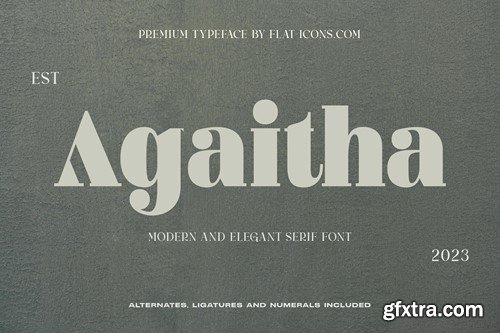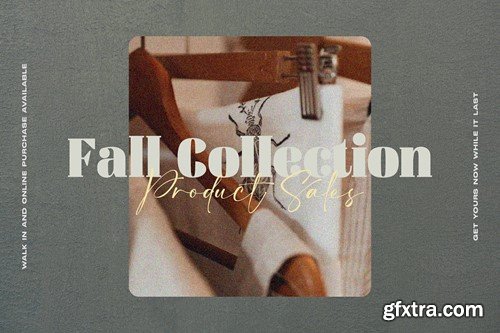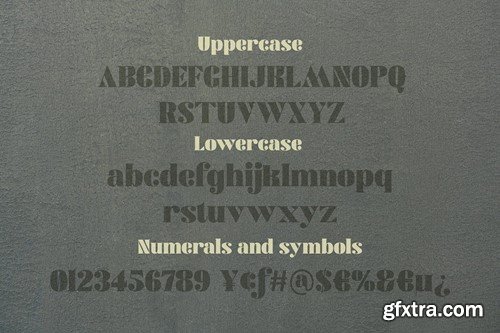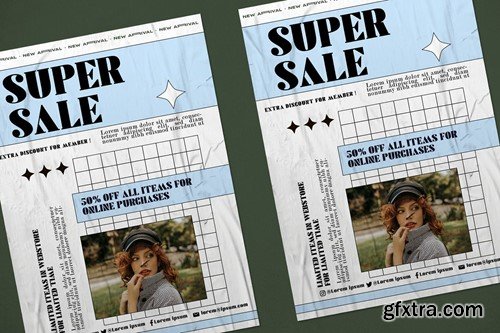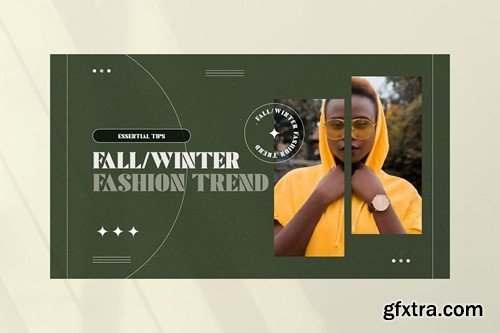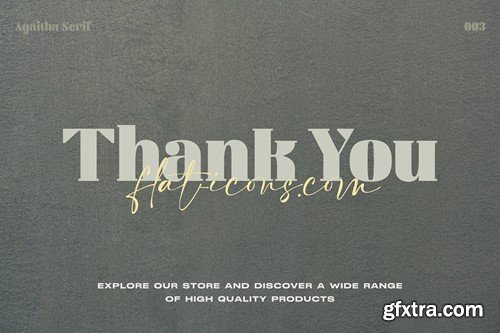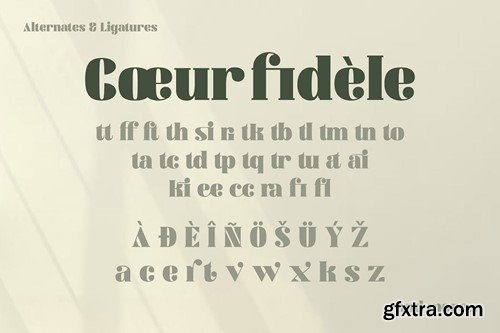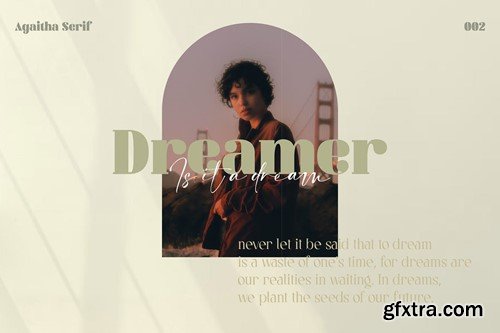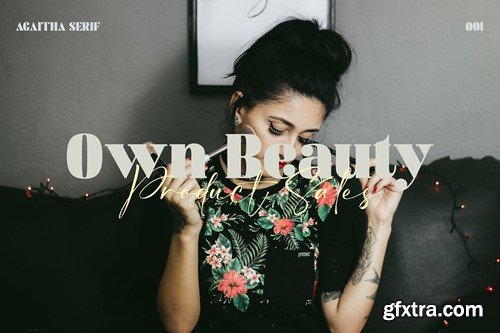
现代优雅衬线字体 97X3ZYD
Looking for a font with a modern elegance and timeless style? Whether it's for a stunning headline or a sophisticated invitation, we've got the ideal thing. Introducing Agaitha - a Modern and Elegant Serif. With its sleek curves and refined details, Agaitha is perfect for elegant projects. Digital or print, this font ensures your brand leaves a lasting mark. What you’ll get: Compatible with: Software Requirements: The fonts that you’ll receive in the pack are widely supported by most software. In order to get the full functionality of the selection of standard ligatures (custom-created letters) in the script font, any software that can read OpenType fonts will work. We hope you enjoy this font and that it makes your branding sparkle! Feel free to reach out to us if you’d like more information or if you have any concerns.